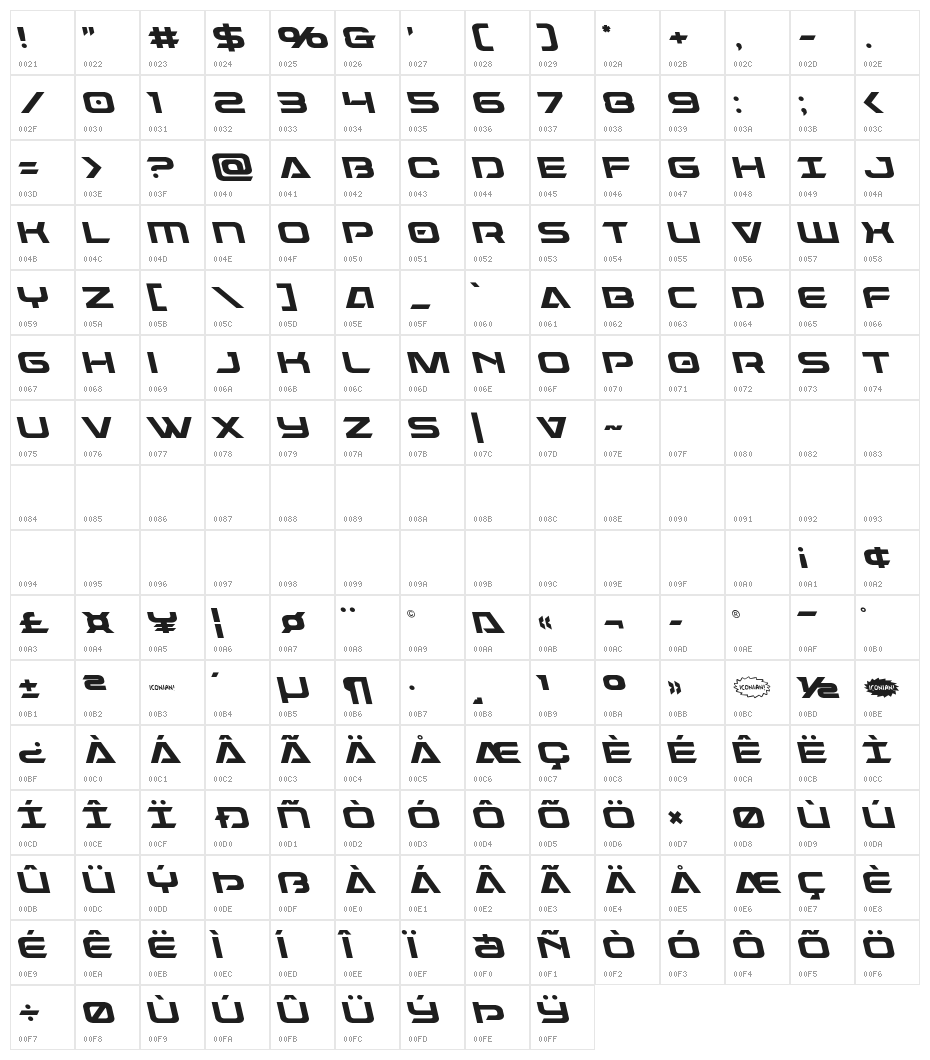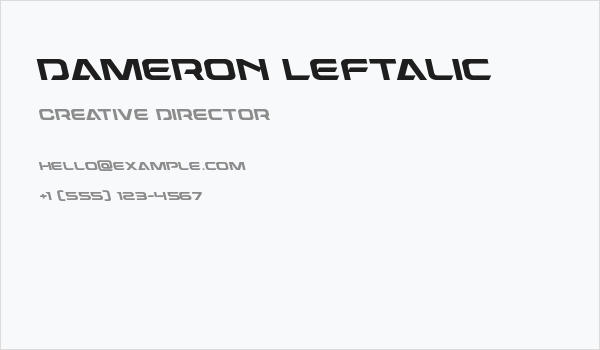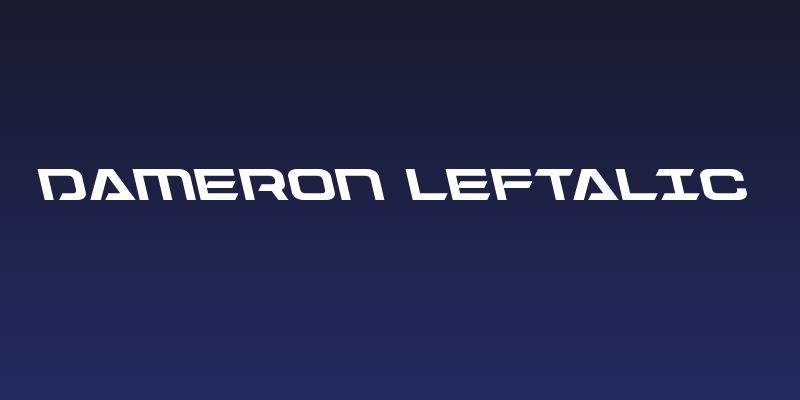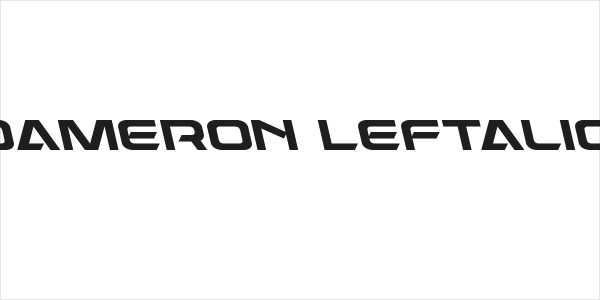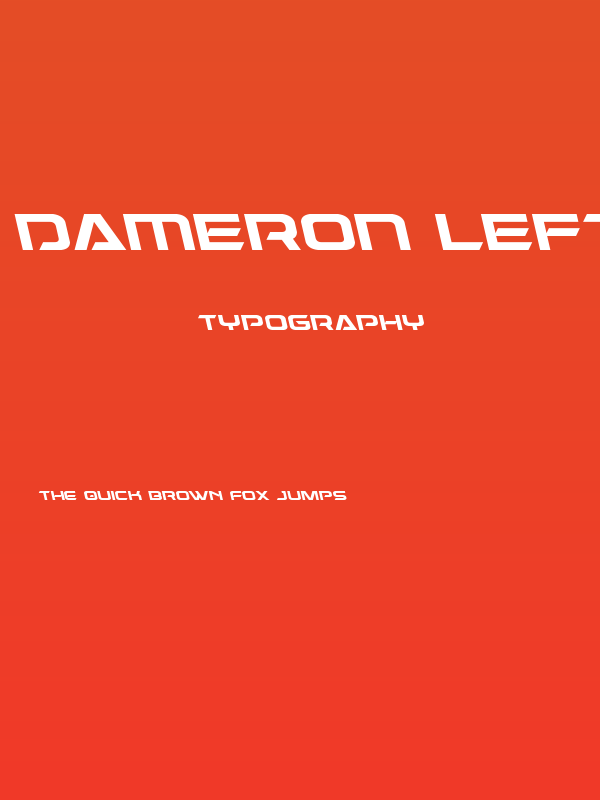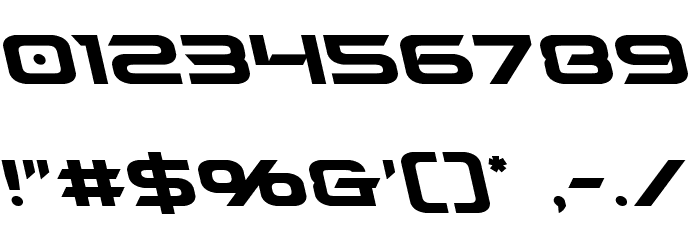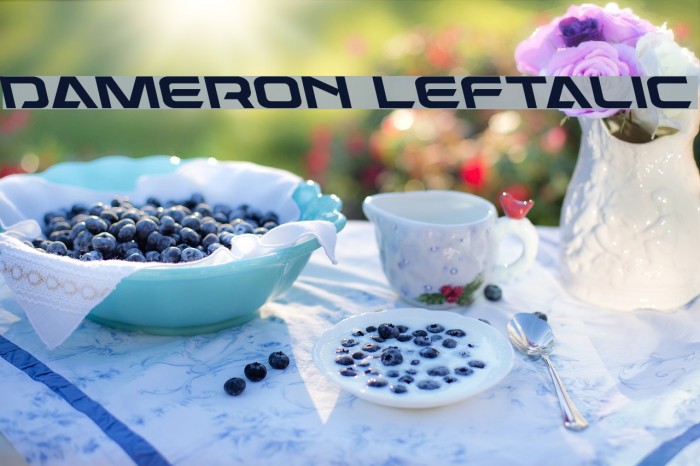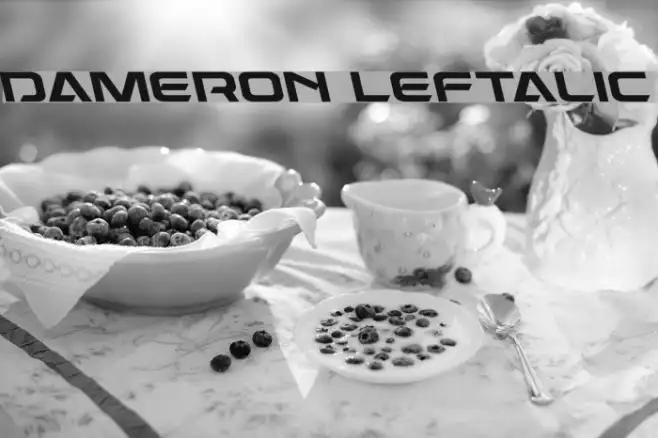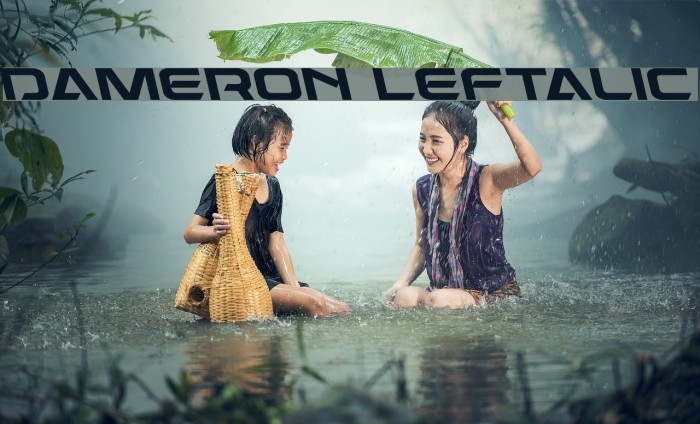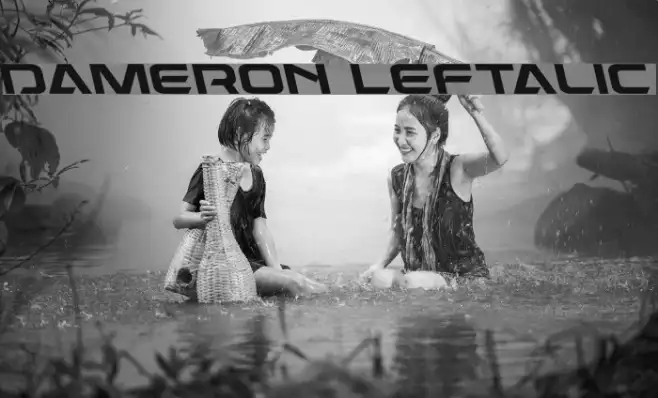
Dameron Leftalic Font
Dameron Leftalic Description
This font features a futuristic and angular design with a distinct slant to the left, giving it a dynamic and forward-moving appearance. The characters are bold and geometric, with sharp edges and a consistent stroke width that maintains a uniform look across all letters and numbers. The uppercase and lowercase letters share a similar style, enhancing the cohesive aesthetic. The numerals are equally bold and maintain the angular theme, making them highly legible. Special characters are designed to match the overall style, ensuring visual harmony throughout the font.
| Proposed Projects | Ideal for sci-fi themed projects, technology branding, video game interfaces, and modern posters. |